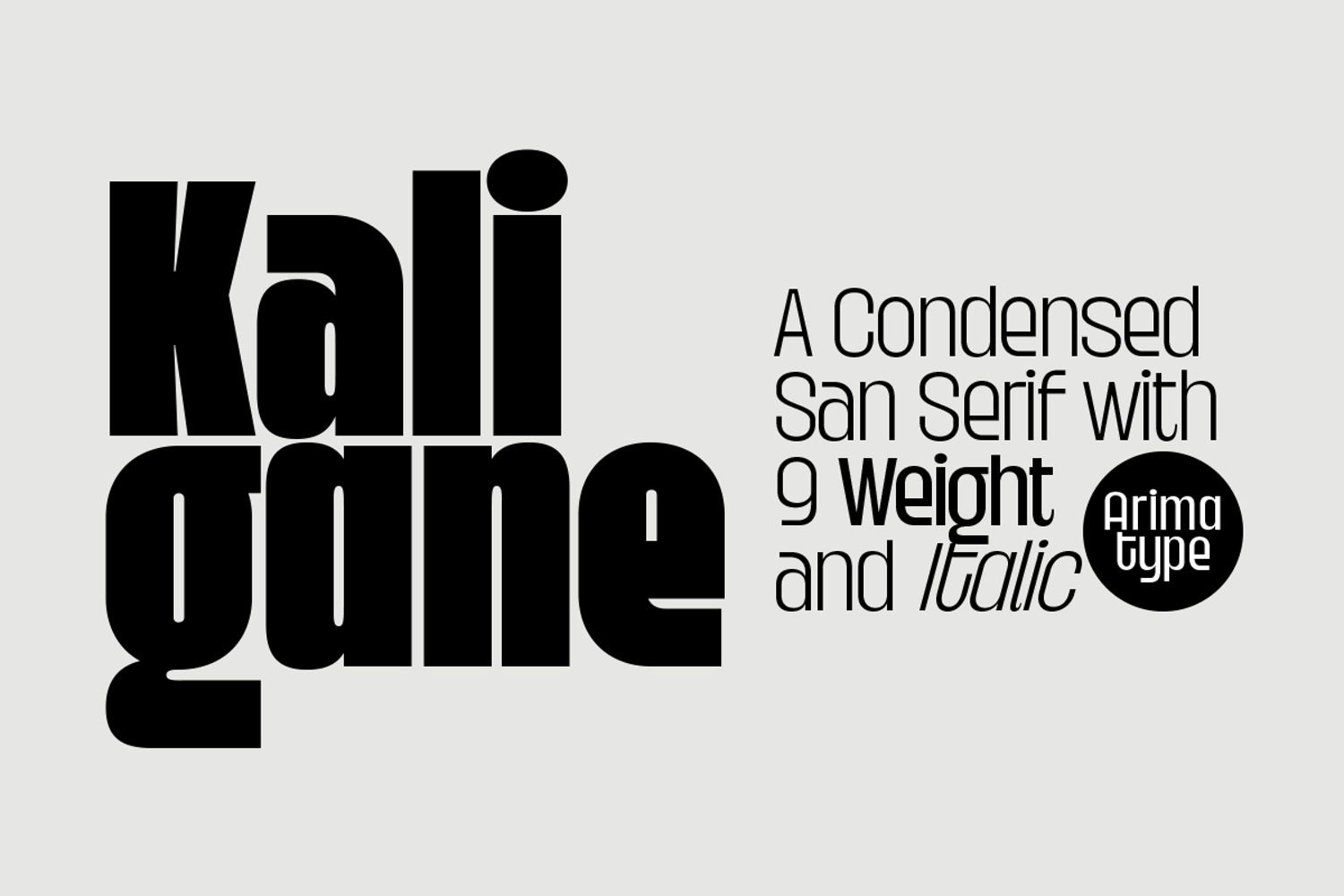
Kaligane
Kaligane is a type family designed with passion. A geometric typeface, first designed in a muscular black weight with a high-powered dynamic typographic aesthetic used in various communications, and later developed in a lighter weight where the shape exhibits some vintage-inspired proportions.
With these diverse influences, typefaces allow for the use of impressive displays and effective logo designs as well as the use of more subtle editorials in body text - with a natural inclination for effective and powerful advertising. Sports typography typically uses italics for added dynamism and impact, and Kaligane complies by offering a choice of three alternative italic shapes with different slants.